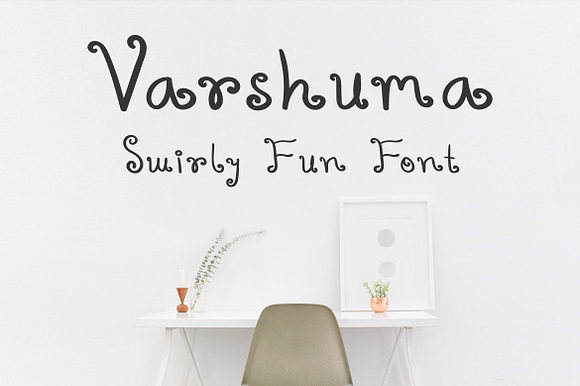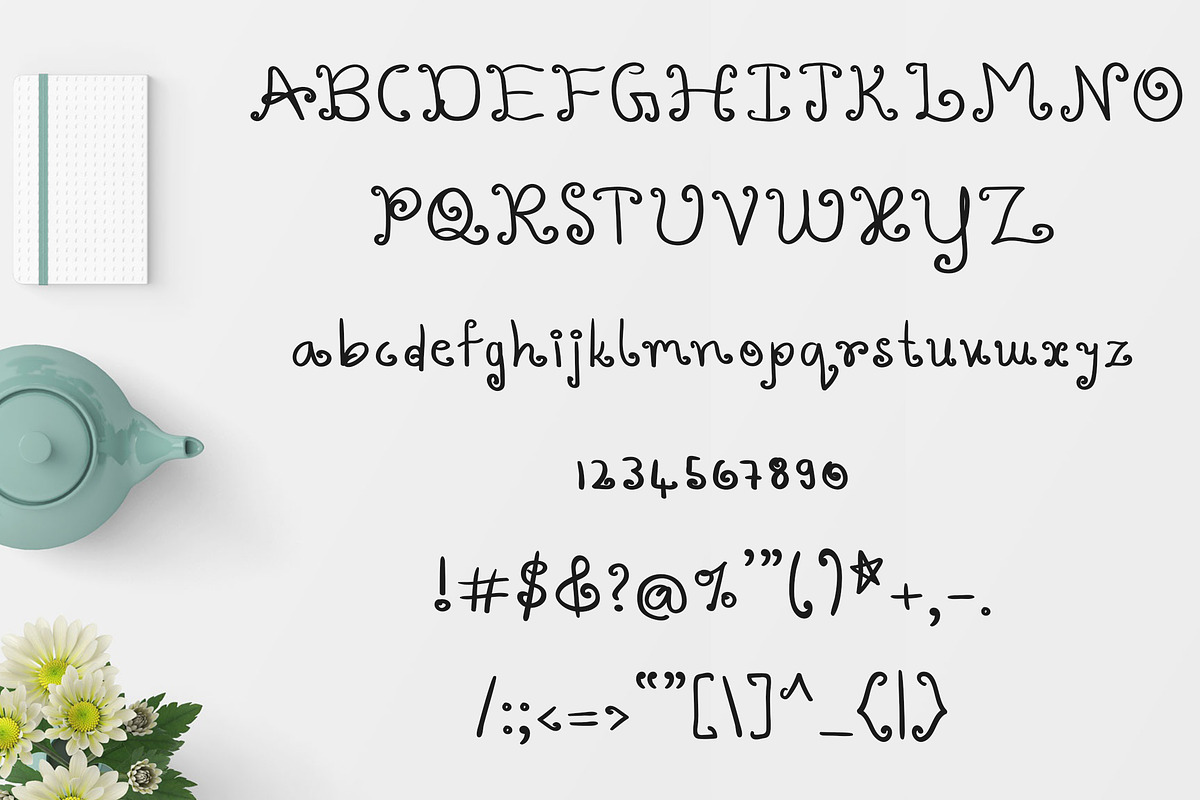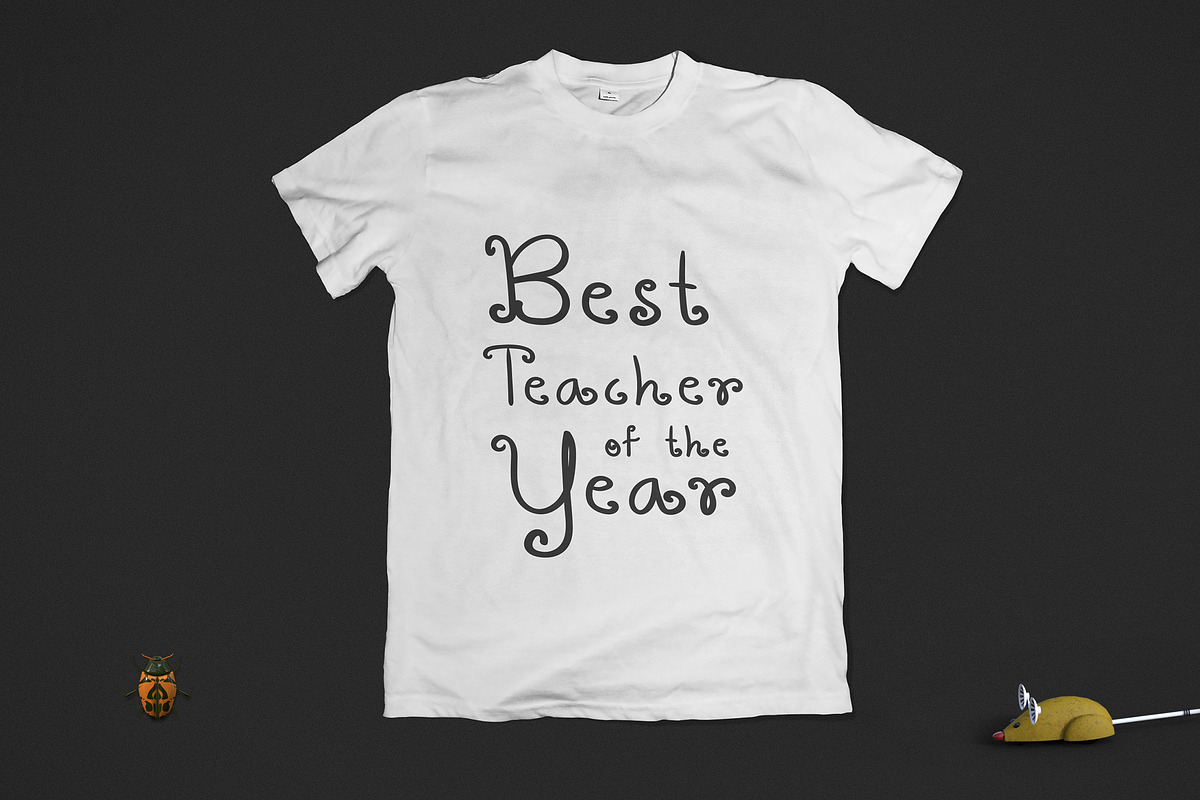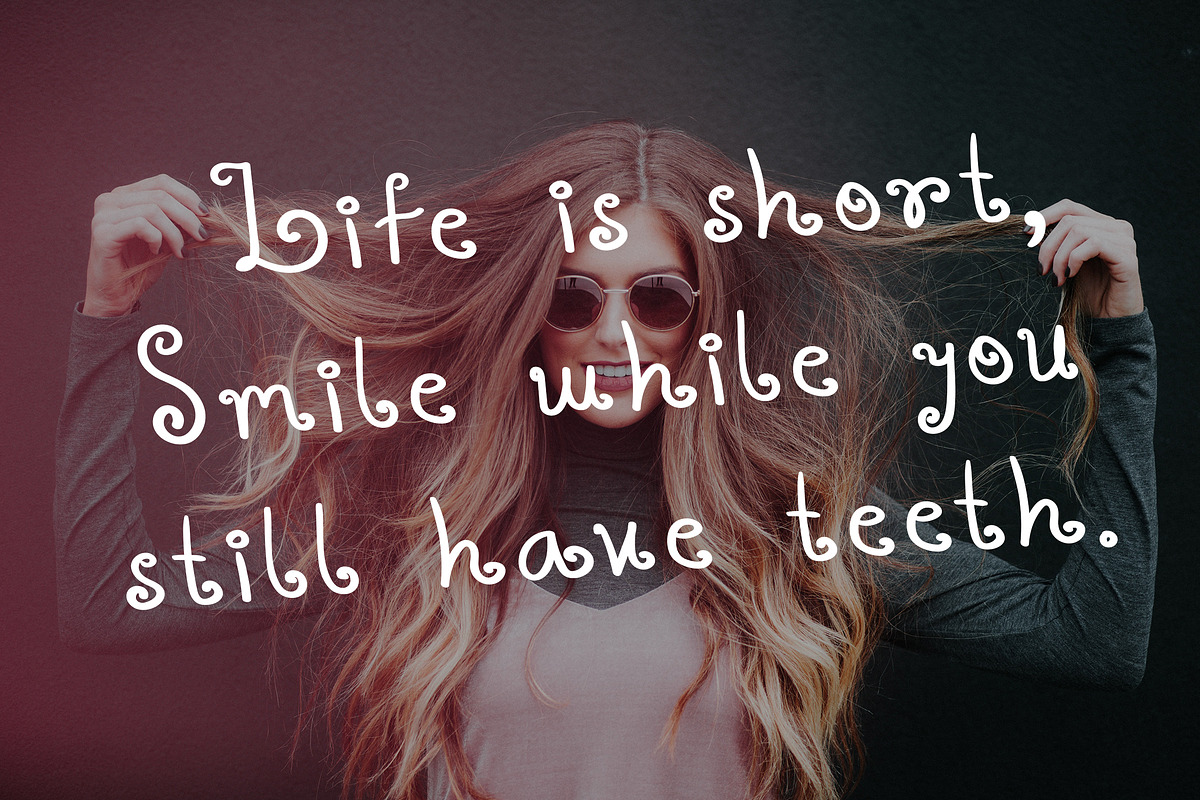
Varshuma - Swirly Fun Font
Varshuma - Handwritten Swirly Fun Font, and cute font great for kids designs, invitations, quotes, simple image overlay and video projects.